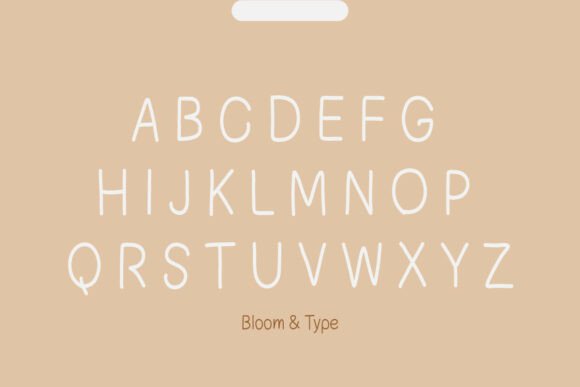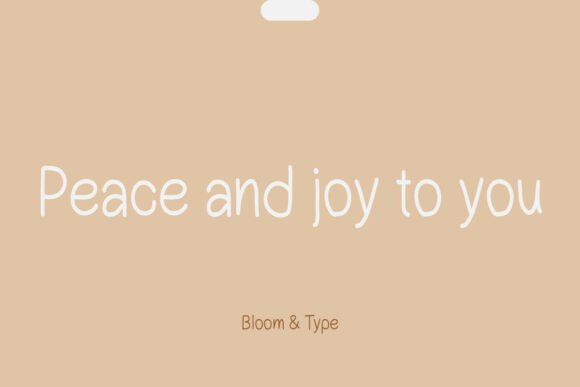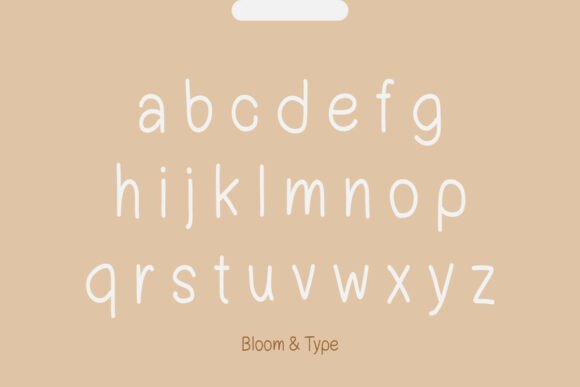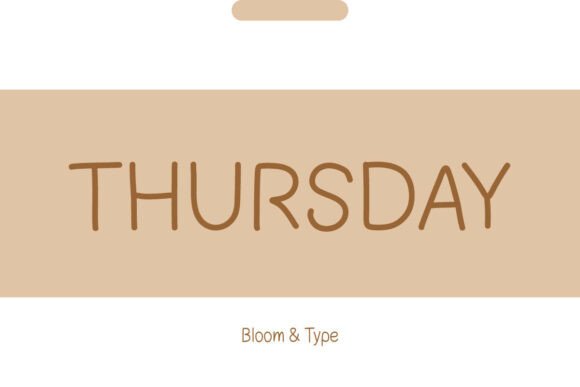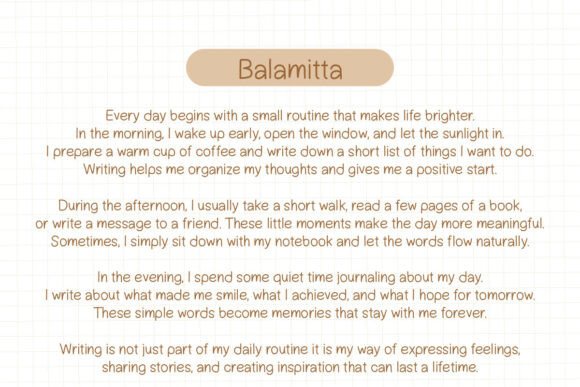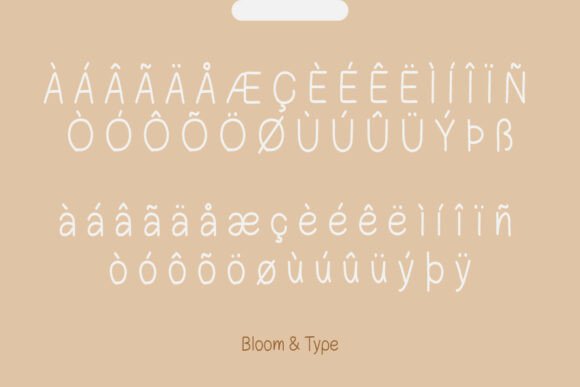
Discover the Charm of Balamitta Font: A Monolinear Handwriting Delight
In the world of typography, fonts play a crucial role in conveying emotions and setting the tone for a brand or design. If you’re looking for a font that exudes warmth, approachability, and a personal touch, look no further than Balamitta. This beautiful monolinear handwriting font is designed to bring a sense of human connection to your digital and print layouts, making it perfect for designers and crafters seeking to add a touch of personality to their work.
The Characteristics of Balamitta
Balamitta boasts a clean, steady rhythm that is both soothing and engaging. Its soft, rounded terminals give it a friendly and approachable feel, making it an excellent choice for designs that require a personal touch. Unlike more chaotic scripts, Balamitta is highly legible and grounded, ensuring that your message is conveyed clearly and effectively.
One of the standout features of Balamitta is its ability to mimic the effortless look of a felt-tip marker on smooth paper. This gives it a unique, hand-written quality that is perfect for adding a touch of whimsy and personality to your designs.
Best Use Cases for Balamitta
So, where can you use Balamitta to add a touch of warmth and personality to your designs? Here are some of the best use cases for this versatile font:
- Children’s book titles: Balamitta’s playful, friendly feel makes it an excellent choice for children’s book titles. Its legibility and clear rhythm ensure that young readers can easily follow along.
- App interfaces: Adding a personal touch to app interfaces can make them feel more welcoming and user-friendly. Balamitta’s clean lines and soft terminals make it perfect for use in app design.
- Artisanal product labels: If you’re looking to add a touch of handmade charm to your product labels, Balamitta is an excellent choice. Its unique, hand-written quality gives products a personal, artisanal feel.
- “Hand-written” marketing notes: Balamitta’s ability to mimic the look of handwriting makes it perfect for adding a personal touch to marketing materials. Use it to create “hand-written” notes or messages that feel genuine and heartfelt.
Why Designers and Crafters Love Balamitta
So, why do designers and crafters love Balamitta? Here are just a few reasons:
- Unique and versatile: Balamitta’s monolinear handwriting style is both unique and versatile, making it perfect for a wide range of design applications.
- Legible and clear: Unlike some handwriting fonts, Balamitta is highly legible and clear, ensuring that your message is conveyed effectively.
- Emotional connection: Balamitta’s warm, approachable feel helps to create an emotional connection with readers, making it perfect for designs that require a personal touch.
Tips for Using Balamitta Effectively
To get the most out of Balamitta, here are a few tips to keep in mind:
- Use it sparingly: While Balamitta is a beautiful font, it’s best used sparingly to add a touch of personality to your designs. Avoid overusing it, as this can make your design feel cluttered and overwhelming.
- Pair it with contrasting fonts: Balamitta’s unique style makes it perfect for pairing with contrasting fonts. Experiment with different combinations to find the one that works best for your design.
- Experiment with colors: Balamitta’s hand-written quality makes it perfect for use with a range of colors. Experiment with different hues and shades to find the one that works best for your design.
In conclusion, Balamitta is a beautiful monolinear handwriting font that offers a unique and versatile way to add a touch of warmth and personality to your designs. Its clean lines, soft terminals, and effortless rhythm make it perfect for a wide range of design applications, from children’s book titles to artisanal product labels. Whether you’re a designer or crafter, Balamitta is sure to become a favorite in your toolkit.